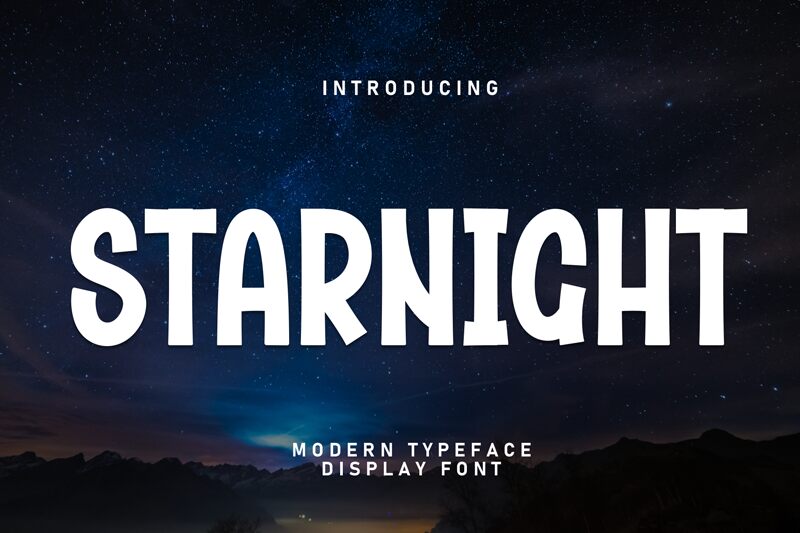
Starnight font is a display typeface designed by Scratchones with cartoon style letters and digits. This condensed font has an interesting appearance, it is stretched vertically and visually leans forward. The overall look will no doubt be fun, unique, and unconventional in any project it is employed within.
You can make the most out of this free display typeface in headlines, titles, logos, t-shirts printing, book covers, stickers design, movie posters or album covers. More uses include blog posts images graphics editing or any typography purpose that comes to mind.